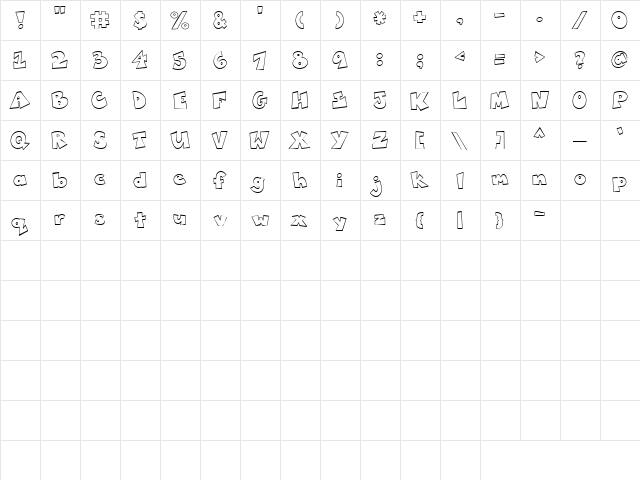
Ck Blockhead Regular Font Preview
Ck Blockhead Regular
Design Context for Ck Blockhead Typeface
Ck Blockhead is a composed and adaptable typeface that performs quietly and consistently across a wide range of design contexts.